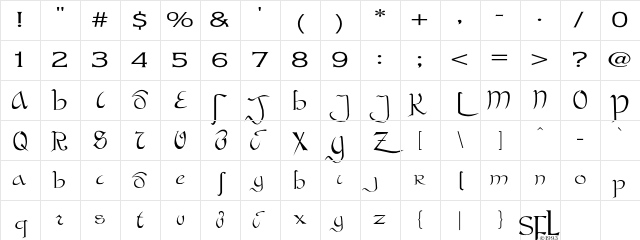
Bastarda Regular Free Font
Bastarda Regular
Design Context for Bastarda
Bastarda is a composed and adaptable typeface that performs quietly and consistently across a wide range of design contexts.